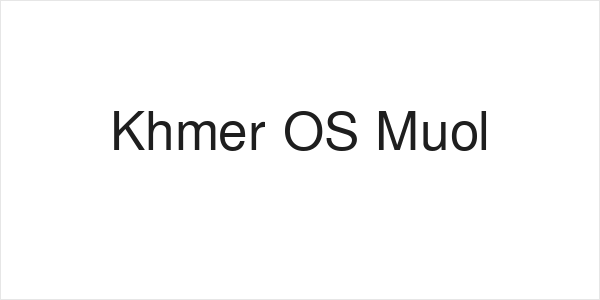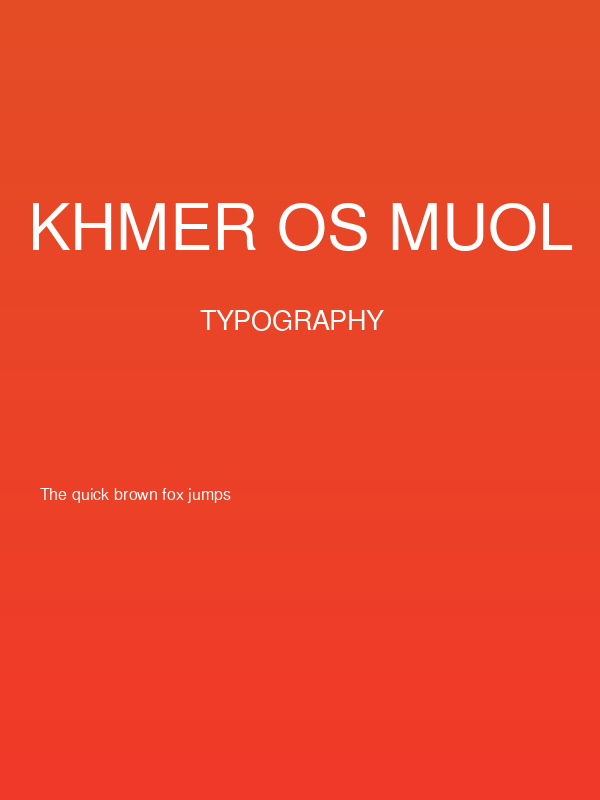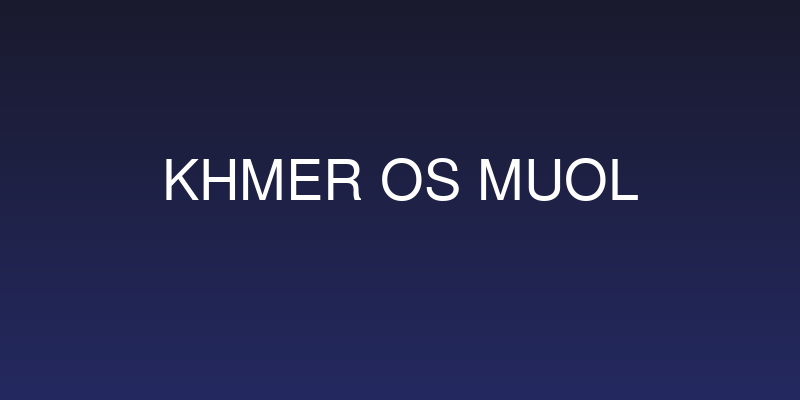
Khmer OS Muol Font
Khmer OS Muol Description
This font features a clean and modern sans-serif design, characterized by its simplicity and readability. The letters are evenly spaced with a consistent stroke width, providing a balanced and harmonious appearance. The uppercase and lowercase letters are well-proportioned, making it suitable for a variety of text applications. The numerals are clear and distinct, ensuring legibility in numerical data. Special characters are included, maintaining the font's cohesive style. Overall, this font is versatile and can be used in both digital and print media, offering a professional and contemporary look.
Proposed ProjectsIdeal for corporate branding, web design, user interfaces, and editorial layouts.